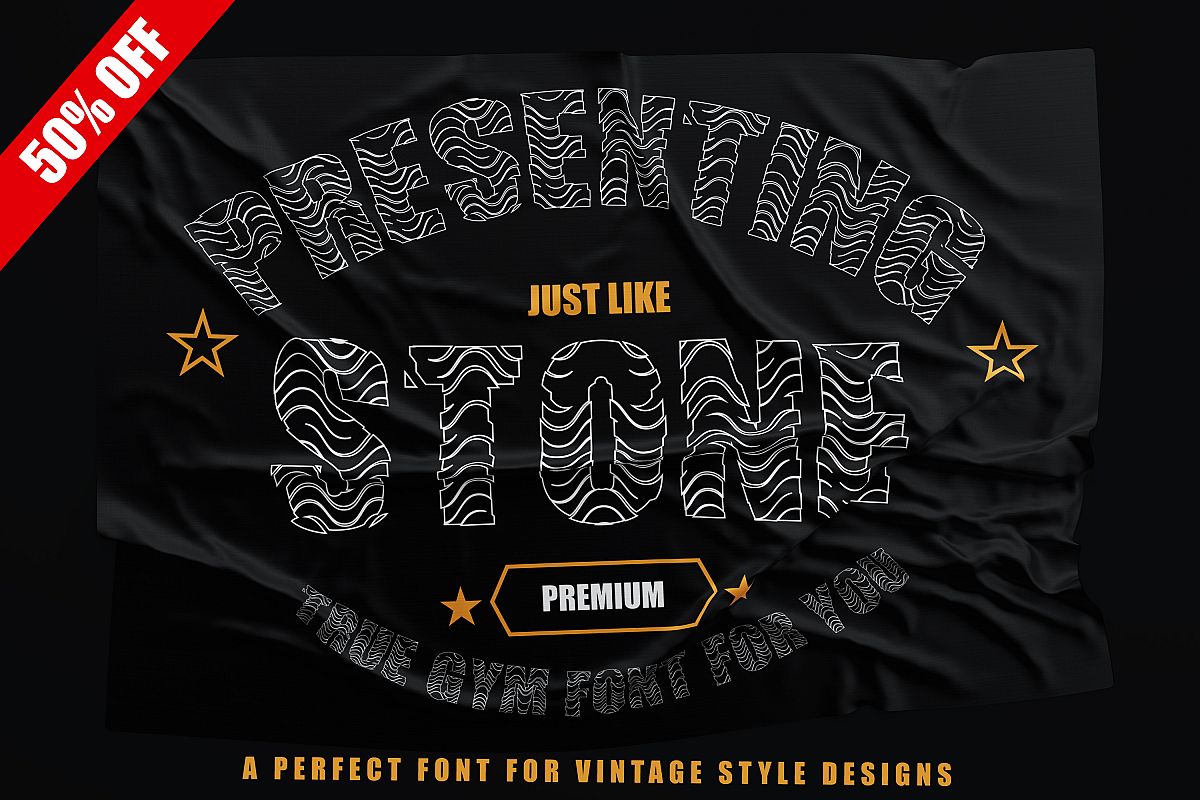
Just Like Stone - Creative Vintage Font for Designs
Presenting Cute font for you. This Special Stone font can be used in tons of projects specially in child and new born projects. You can use it for craft purpose and this will looks great on shirts, printing material and other stuff.
2- UPPER Case only Letters A to Z and 0-9 Numbers
3- Super Cute and Creative